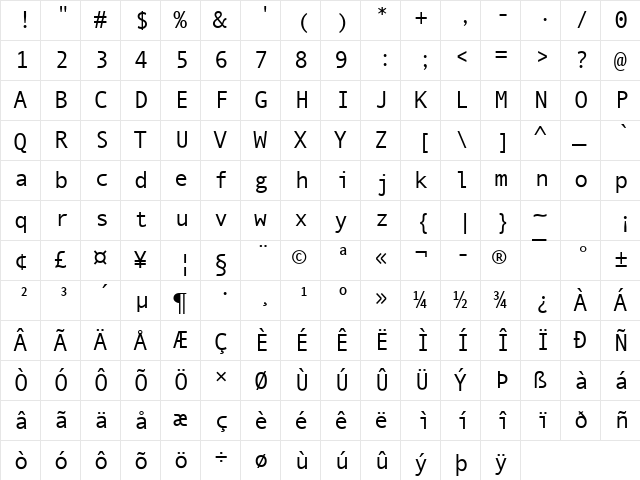
Andale Mono Regular
| Foundry | Monotype Typography |
| Designer | Steven R. Matteson |
Design Context for Andale Mono Typeface
Andale Mono brings the precise, column-aligned rhythm of monospaced typography to designs that value technical clarity and systematic order.
A natural fit for code editors, technical documentation, developer-focused branding, and terminal-inspired UI.